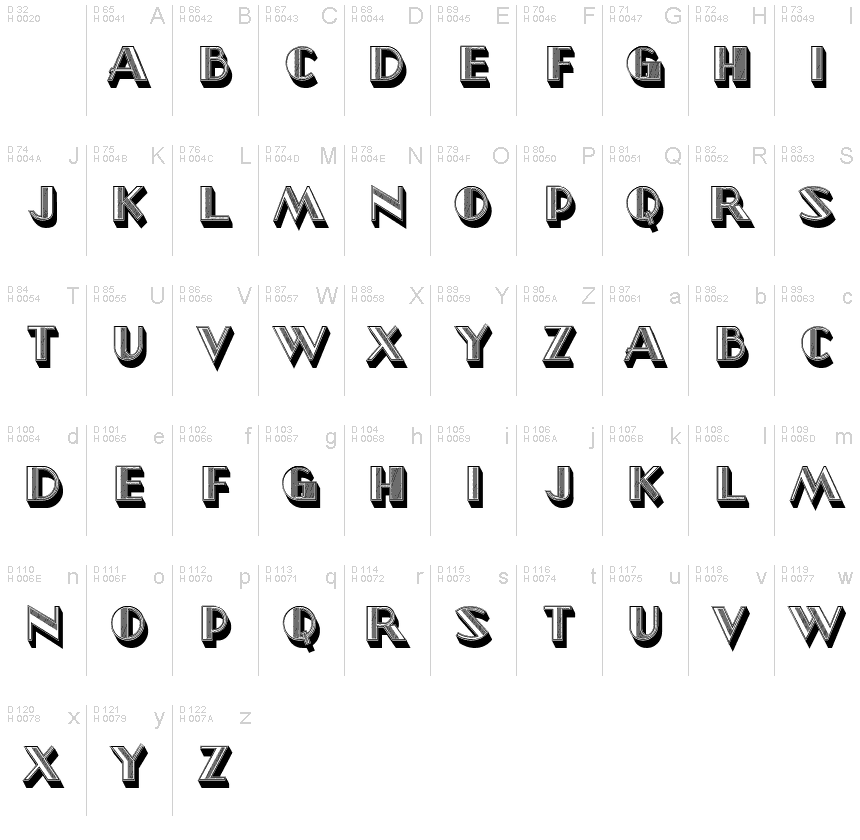
North Border Extruded Hollow font is a bold retro typeface designed by Vladimir Nikolic.
"North Border" comes in Regular, Extruded, and Extruded Hollow variants!